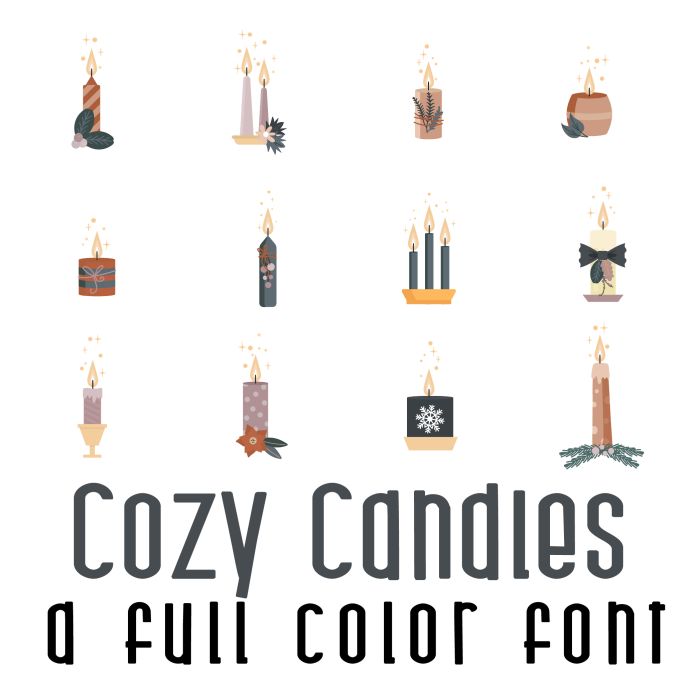
This fun full color font features 26 cozy candles perfect for Winter months. Use for cards, crafts, decor, gifts, planner stickers, scrapbook pages, classrooms and more!